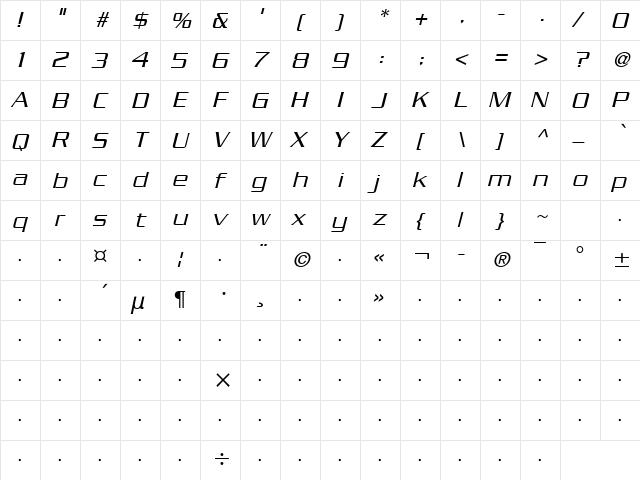
Enterprise Italic
Design Context for Enterprise Typeface
Enterprise offers clean, dependable letterforms without strong stylistic allegiance, making it a practical choice for designers who need flexibility. Its italic angle brings a sense of urgency and motion to the letterforms.